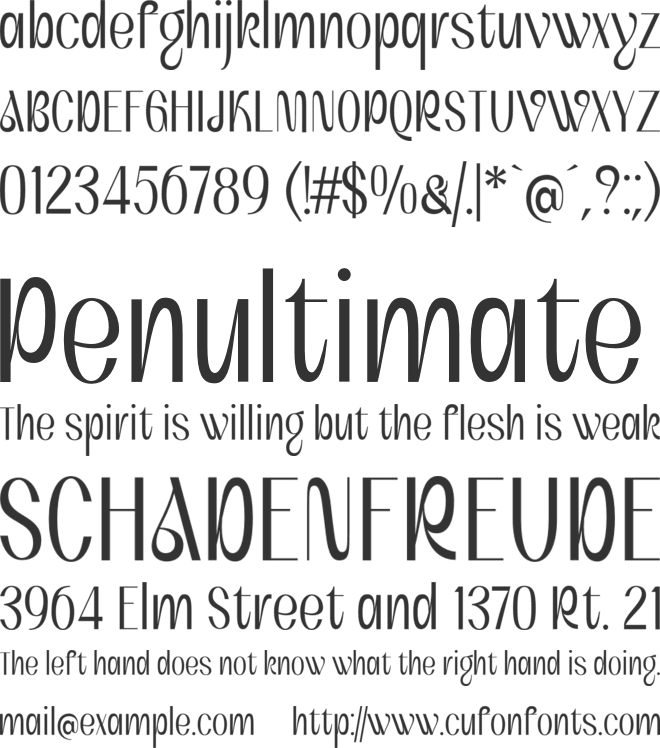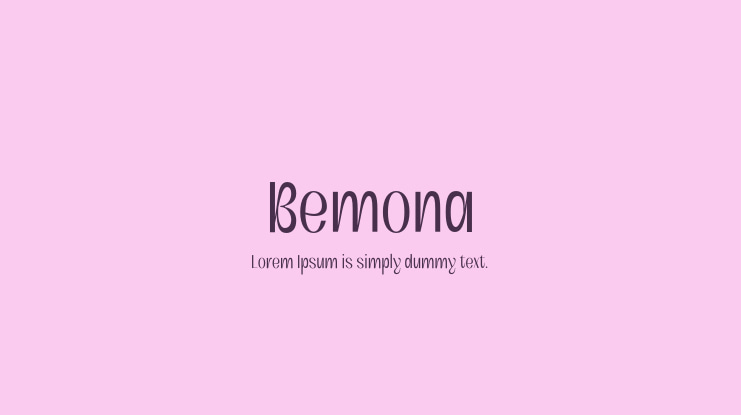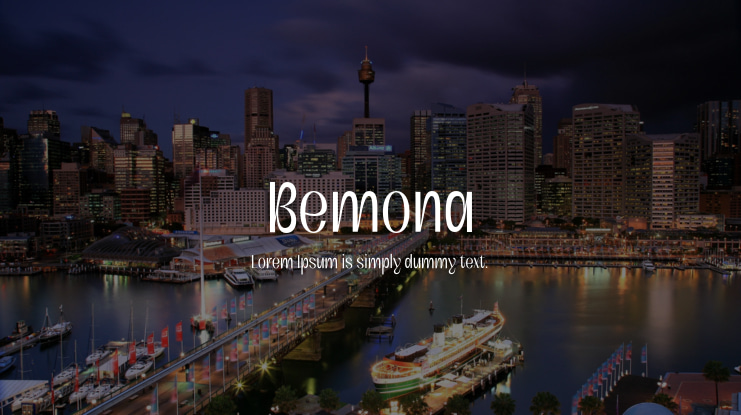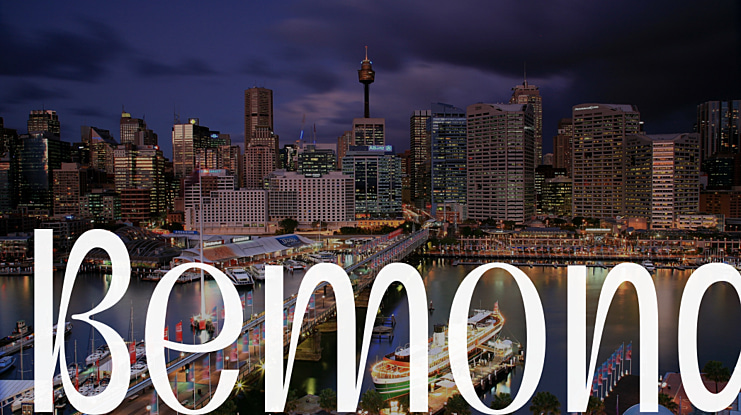
Bemona Font
Bemona is a beautiful and simple sans serif font that is perfect for a wide range of design projects. The font is characterized by clean lines and a minimalistic design, making it ideal for modern designs that require a sleek and professional look.